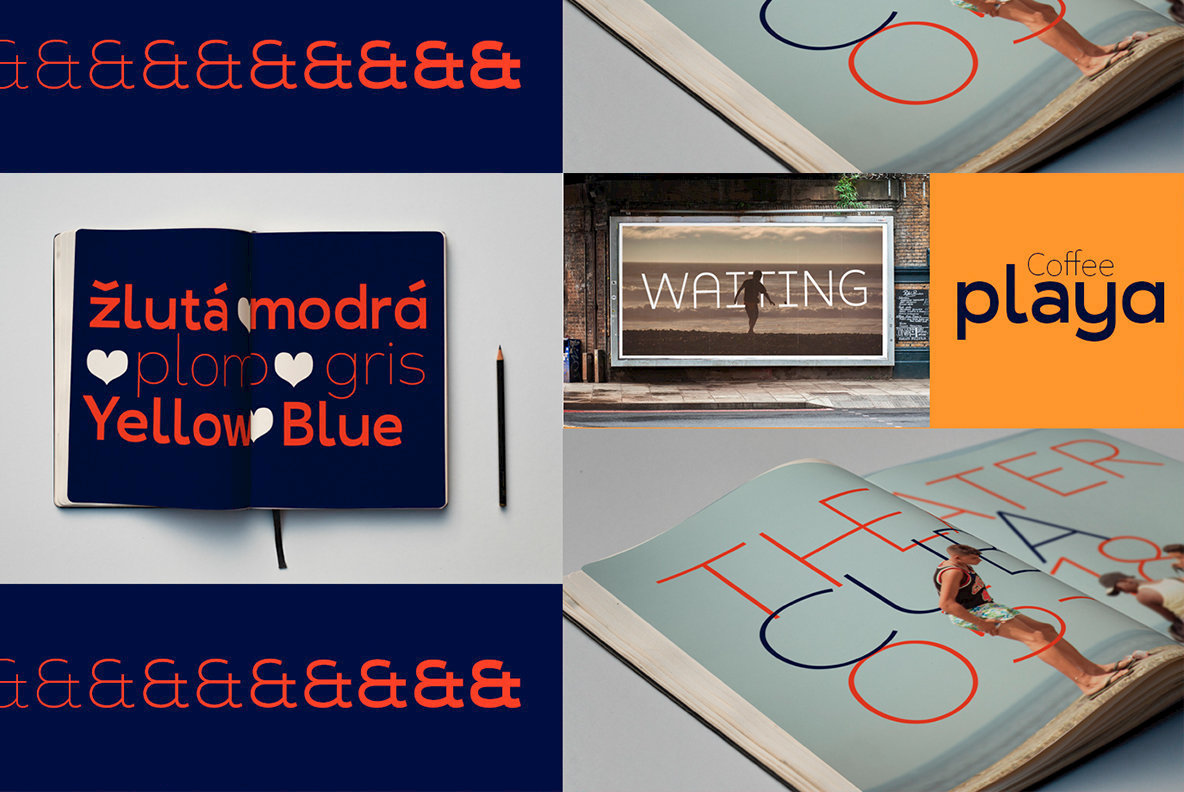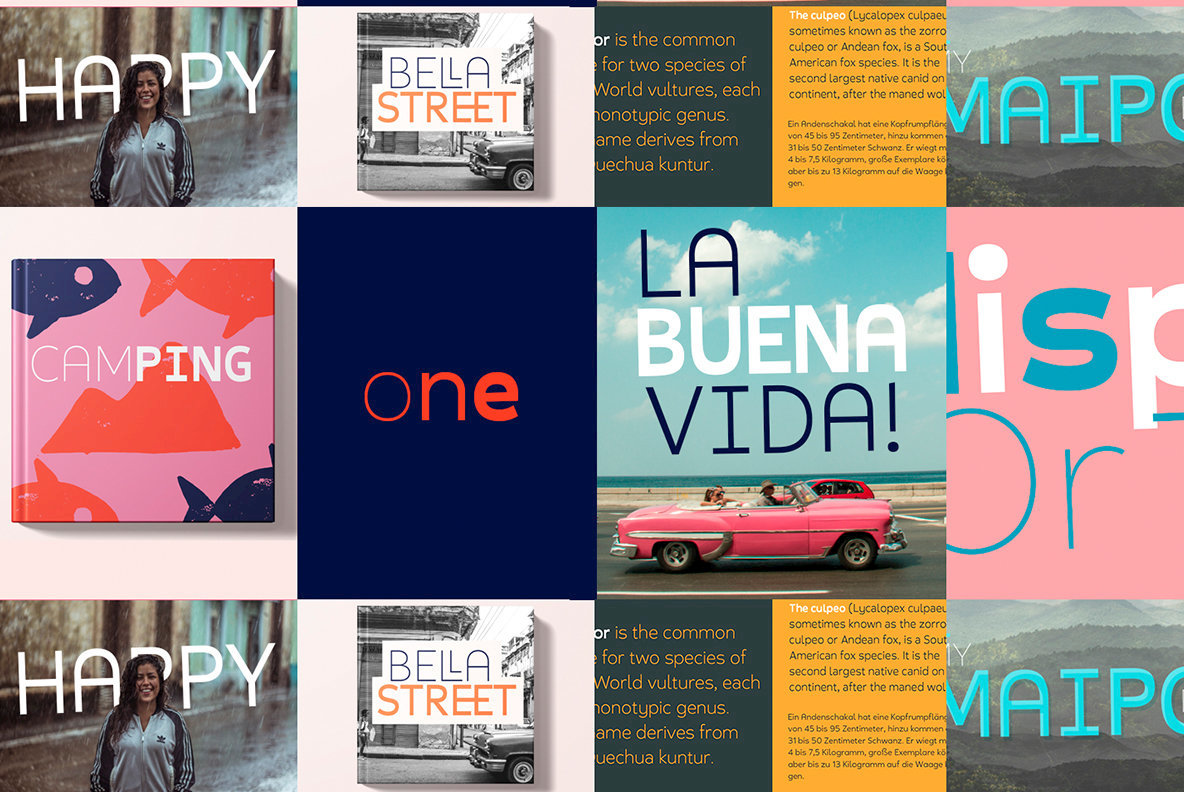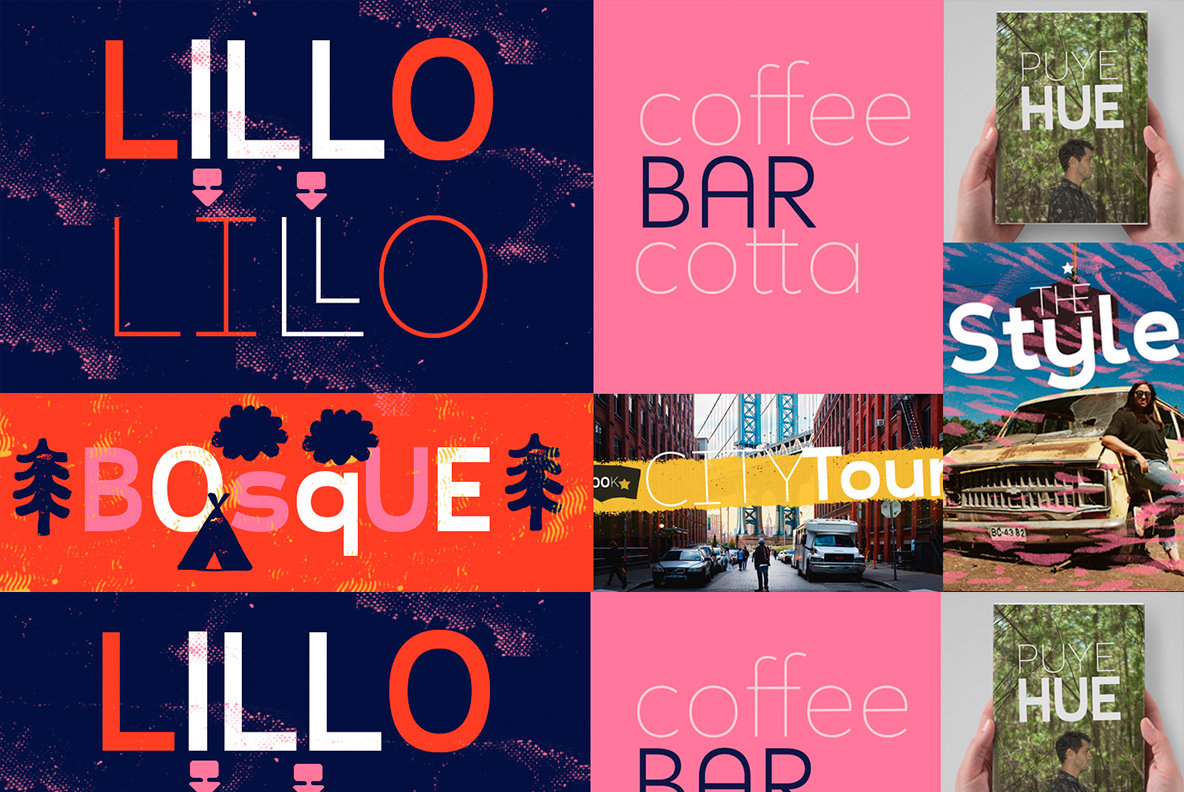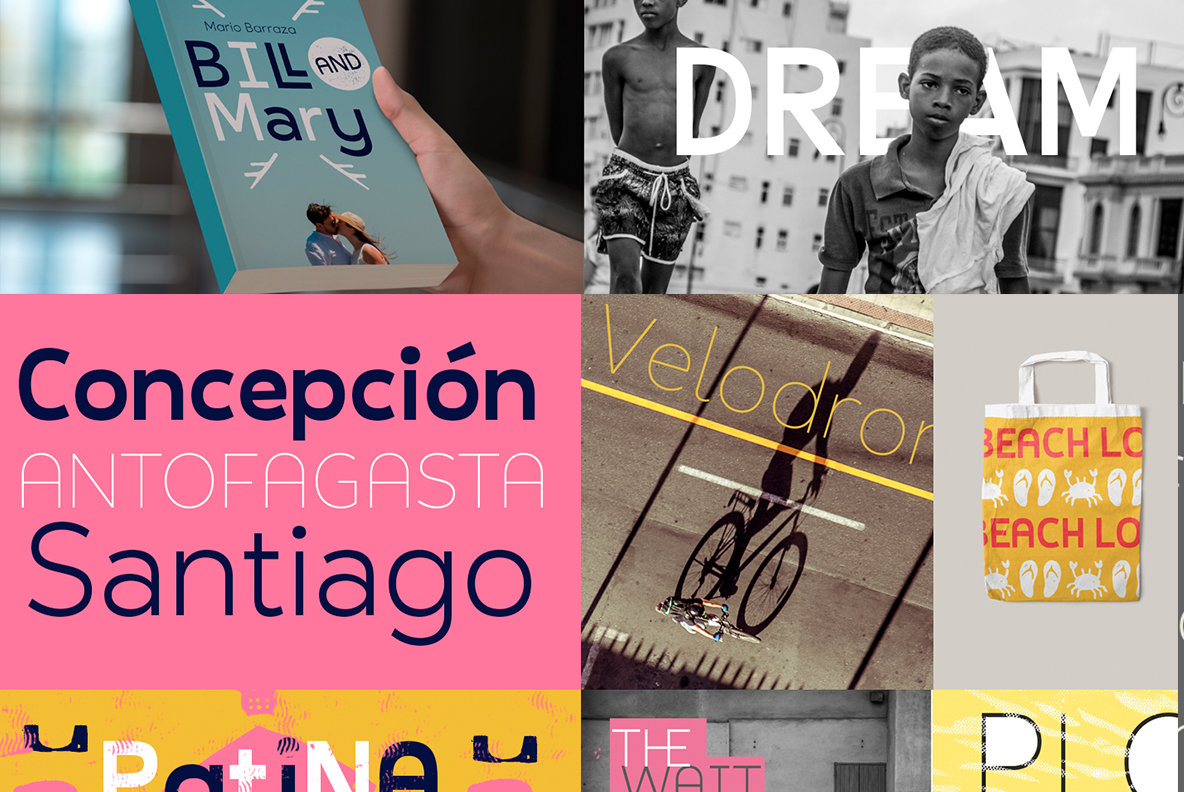
Nuby: Crisp Sans Serif for Dynamic Text
Nuby is a commanding Sans Serif typeface expertly crafted to offer versatility across a range of design projects. Spanning nine distinct weights from Thin to Black, this font is particularly well-suited for short text settings. Its clean lines and modern flair promise to enhance readability while offering distinct character alternatives for creative expression.
• Wide Weight Range – Includes options from Thin to Black.
• Perfect for Short Text – Designed for clarity and impact.
• Character Alternatives – Provides versatility and creative adaptability.